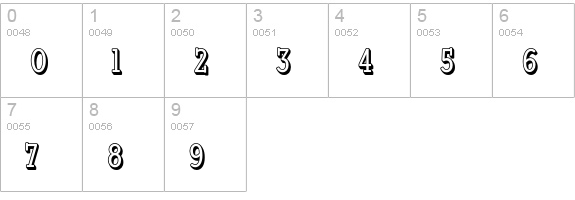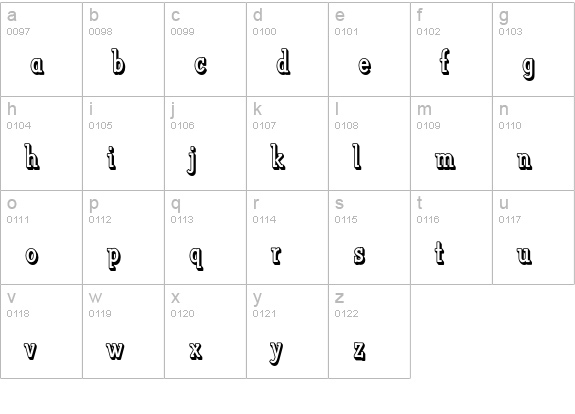
Vermont Std Font Details
Vermont Std, a visually stunning font that exudes elegance and sophistication, is now available for free download at FontsMarket.com. This captivating typeface effortlessly combines classic charm with a modern twist, making it the perfect choice for any design project. Vermont Std features sleek and refined letterforms that effortlessly flow together, creating a harmonious and balanced appearance. Its crisp and clean lines ensure legibility, making it suitable for both print and digital applications. Whether you're designing a wedding invitation, a logo, a website, or any other creative endeavor, Vermont Std will elevate your work to new heights. Its versatile nature allows it to seamlessly adapt to various design styles, from traditional to contemporary. The attention to detail in Vermont Std is exceptional, with each glyph meticulously crafted to perfection. The subtle curves and unique character variations lend a touch of sophistication and personality to any design. What's even more exciting is that Vermont Std is absolutely free! Thanks to FontsMarket.com, this exceptional font can be freely downloaded, giving designers and creatives the opportunity to add a touch of elegance to their projects without breaking the bank. So, whether you're a professional graphic designer or a hobbyist looking to enhance your creations, don't miss out on the opportunity to download Vermont Std for free at FontsMarket.com. It's time to unleash your creativity and make a lasting impression with this remarkable typeface.